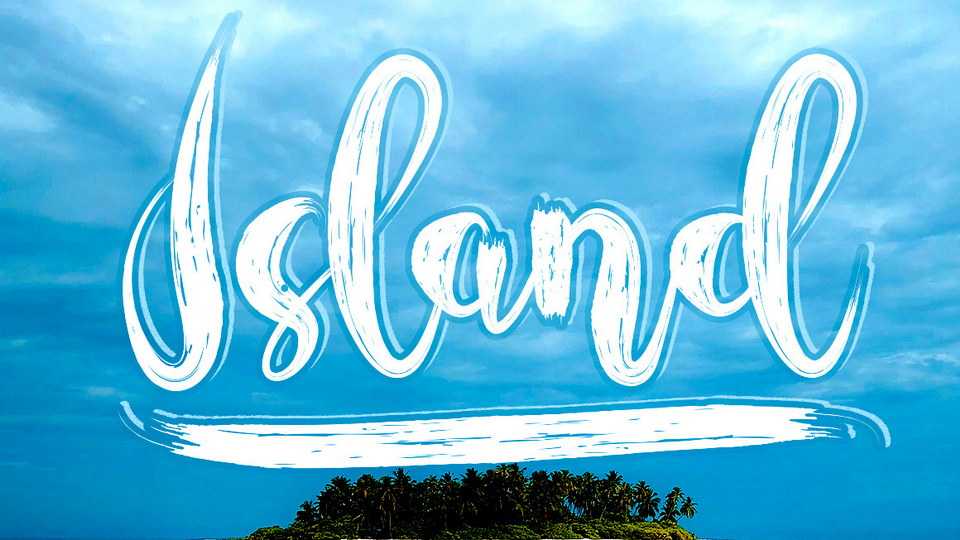
Download Island font, a lovely brushed handwritten typeface. Island font has a casual and trendy touch, which will make each of your creations both adaptable and unique.